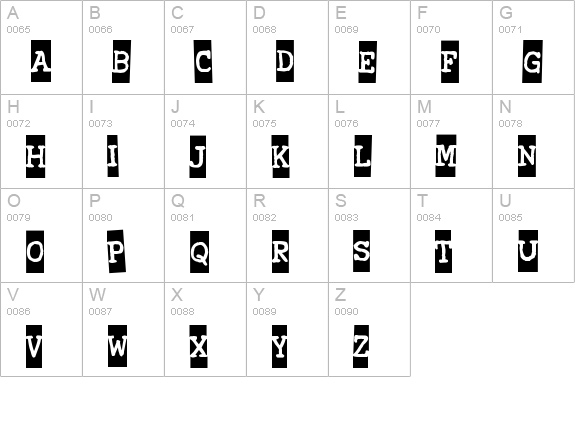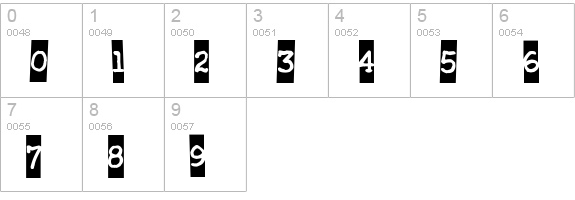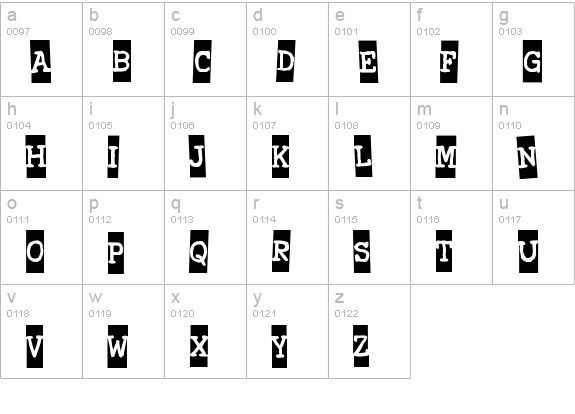
Xerography Font Details
Xerography font is a bold and modern typeface that exudes a sense of confidence and professionalism. Its clean lines and sharp edges make it perfect for a wide range of design projects, from branding to advertising to web design. The Xerography font is versatile and can be used for both headings and body text, adding a touch of sophistication to any layout. Best of all, Xerography font is available for free download at FontsMarket.com. This means that you can easily access this stylish font without any cost, making it a valuable addition to your font collection. Whether you're a designer looking for a new font to elevate your projects or a business owner seeking a fresh and contemporary typeface for your branding, Xerography font is the perfect choice. Download it today and start creating stunning designs with this sleek and elegant font.